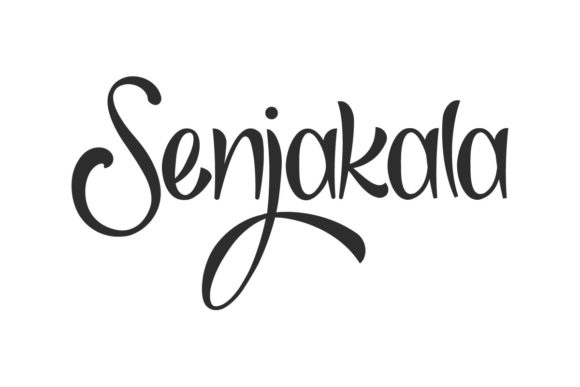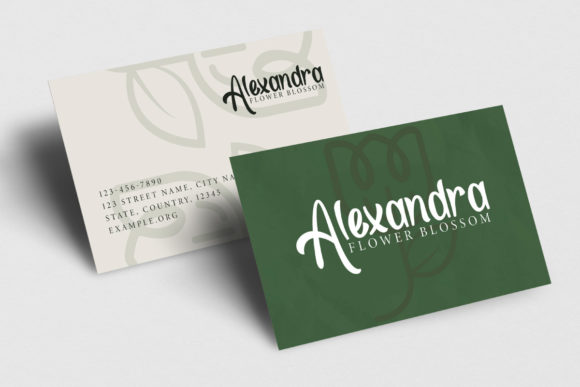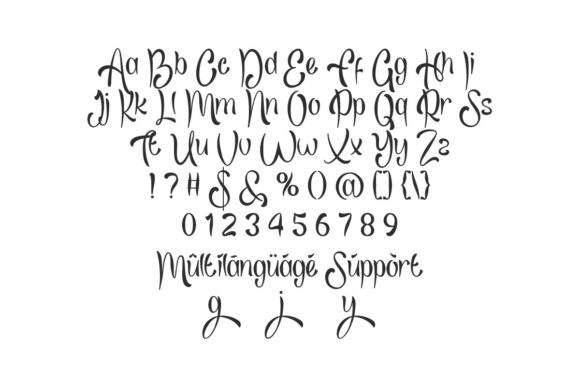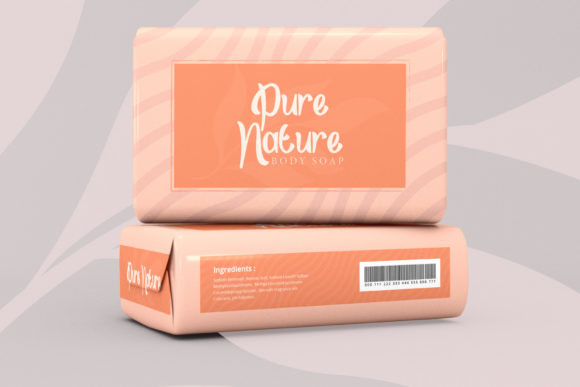
About Senjakala Font
“Senjakala” is a trendy and chic handwritten font that brings a stylish and modern touch to your creative projects. Perfectly suited for product packaging, branding projects, magazine covers, social media, weddings, and any design where you want to express words above the background with a contemporary flair.
The trendy and chic nature of “Senjakala” makes it an ideal choice for projects that require a fashionable and modern aesthetic. Whether you’re designing for a sleek product package, a dynamic branding project, or creating eye-catching social media content, this font adds a touch of sophistication to your work.
Its handwritten style contributes to a personalized and authentic feel, allowing your designs to stand out with a unique touch. The versatility of “Senjakala” allows it to adapt seamlessly to various design contexts, making it a valuable asset for a range of creative endeavors.
In summary, “Senjakala” is more than just a font; it’s a trendy and chic handwritten typeface that enhances the visual appeal of your projects. Embrace its modern flair and let “Senjakala” elevate your design endeavors, whether it’s for product packaging, branding, or social media content.